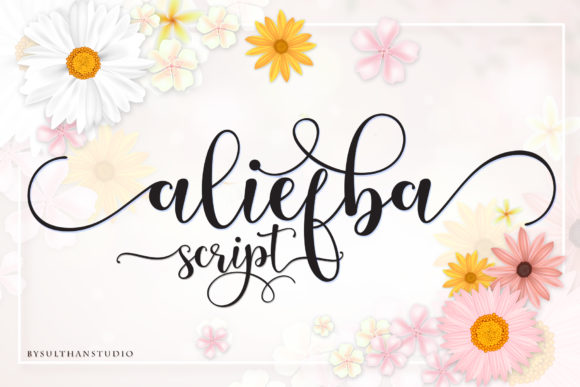
Introducing Aliefba Font: Elevate Your Designs with Elegance and Sophistication
In the world of typography, fonts play a crucial role in conveying the tone and personality of a design. Among the numerous fonts available, Aliefba stands out as a stunning example of elegance and refinement. This beautiful handwritten font is designed to add a touch of sophistication to any project, making it perfect for creative endeavors that demand a high level of class and poise.
What Makes Aliefba Font Special?
Aliefba is an elegant and flowing handwritten font that boasts a range of impressive features. One of its standout qualities is its PUA (Private Use Area) encoding, which allows users to access all glyphs and swashes with ease. This feature makes it incredibly versatile and user-friendly, enabling designers to experiment with various typographic styles and effects.
Another notable aspect of Aliefba is its masterful blend of traditional calligraphic influences with modern flair. The font’s classy, elegant feel is perfectly balanced by a contemporary freshness that ensures it remains relevant and engaging. Whether you’re working on a branding project, creating a stunning visual display, or crafting a beautiful piece of art, Aliefba is the perfect choice.
Endless Design Possibilities with Aliefba
Aliefba’s versatility and elegance make it suitable for a wide range of design applications. Here are just a few examples of how you can use this stunning font to elevate your projects:
- Branding and Logos: Create a lasting impression with Aliefba’s elegant and sophisticated lettering. Perfect for luxury brands, high-end products, and services that require a touch of refinement.
- Wedding and Event Invitations: Add a touch of romance and whimsy to your wedding or event invitations with Aliefba’s beautiful, flowing script.
- Packaging and Product Design: Stand out on store shelves with Aliefba’s unique and eye-catching typography. Ideal for high-end products, cosmetics, and gourmet food items.
- Digital Media and Advertising: Use Aliefba to create stunning visual displays, social media graphics, and advertisements that demand attention and exude sophistication.
Aliefba’s Typographic Excellence
Aliefba’s design is rooted in a deep understanding of typographic principles and aesthetics. The font features:
- Beautifully crafted letterforms: Each letter is carefully designed to showcase a perfect balance of elegance and legibility.
- Intricate swashes and flourishes: Add a touch of drama and flair to your designs with Aliefba’s stunning swashes and flourishes.
Why Choose Aliefba Font?
- Unparalleled elegance: Aliefba’s refined, sophisticated design ensures your projects exude class and poise.
- Versatility: From branding and logos to digital media and advertising, Aliefba is suitable for a wide range of design applications.
- Contemporary freshness: Aliefba’s modern twist ensures it remains relevant and engaging in today’s fast-paced design landscape.
Fall in Love with Aliefba Font
In conclusion, Aliefba is a truly exceptional font that can elevate your designs to new heights. Its elegant, flowing script and PUA encoding make it the perfect choice for designers seeking to add a touch of sophistication and refinement to their projects. Whether you’re working on a branding campaign, creating a stunning visual display, or crafting a beautiful piece of art, Aliefba is the perfect companion. So why wait? Fall in love with Aliefba font and bring your projects to the highest levels!